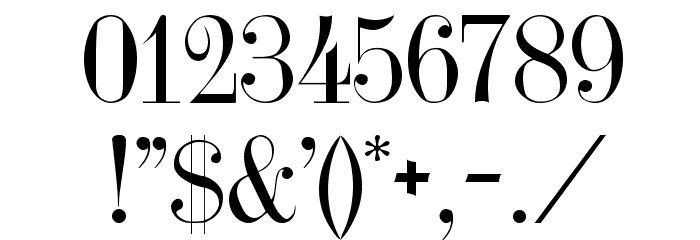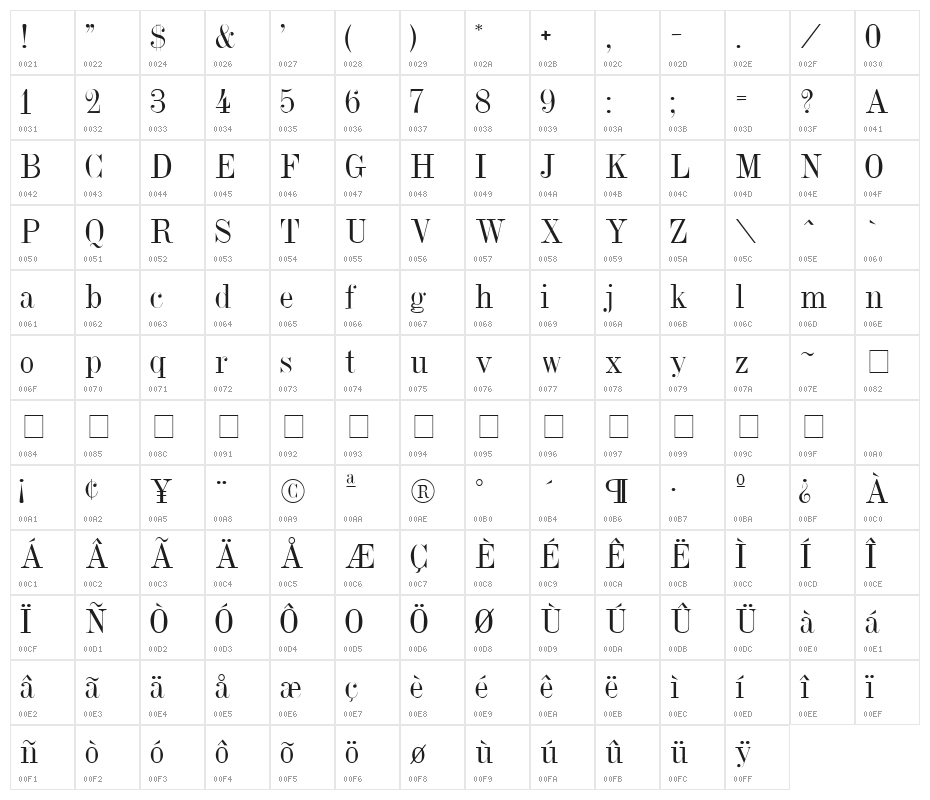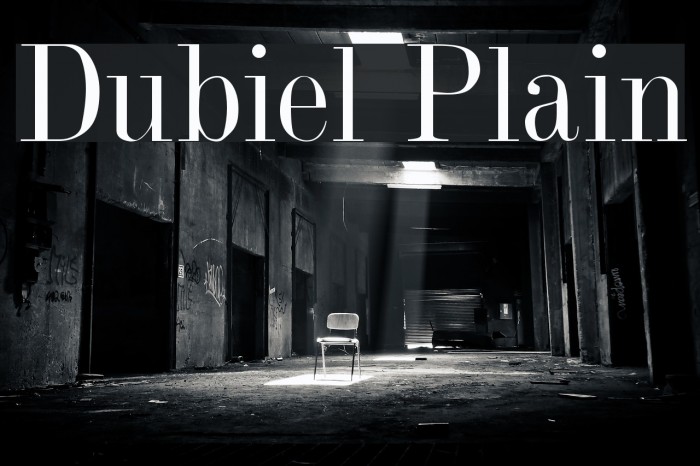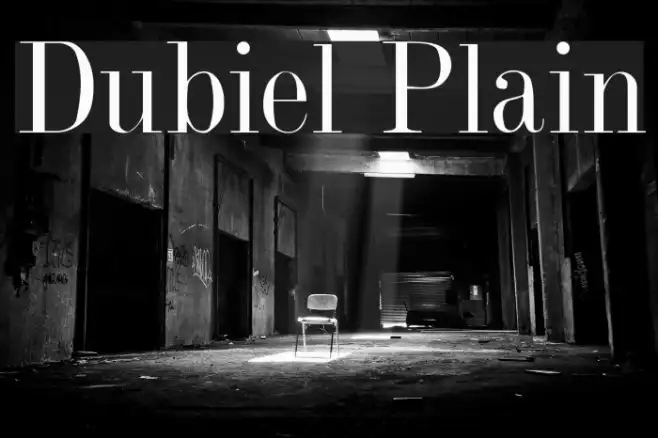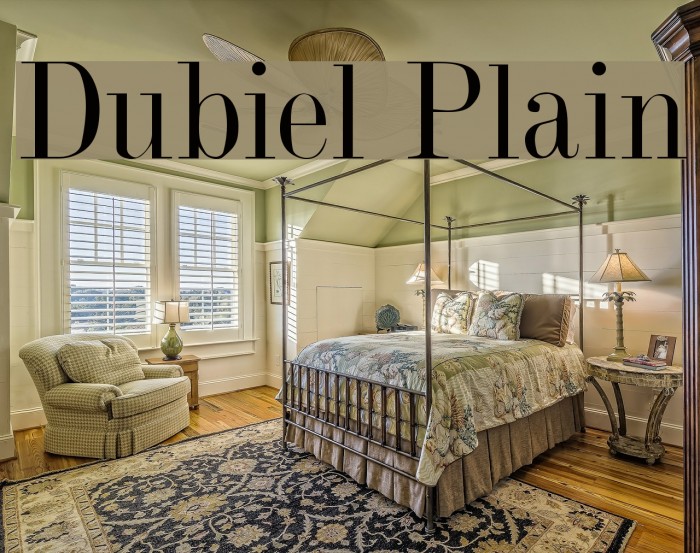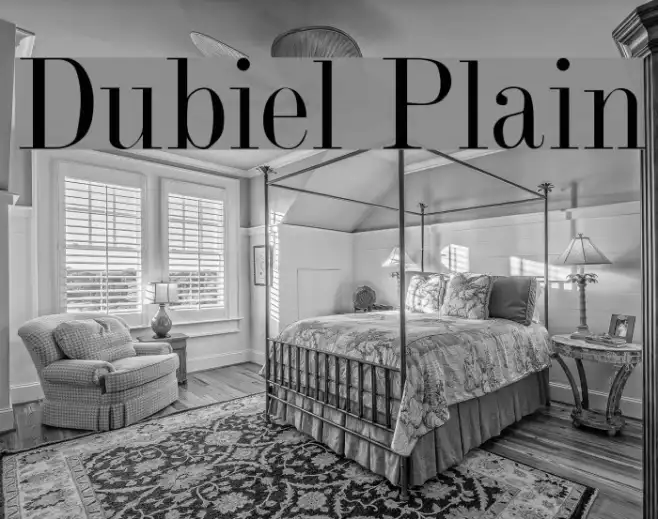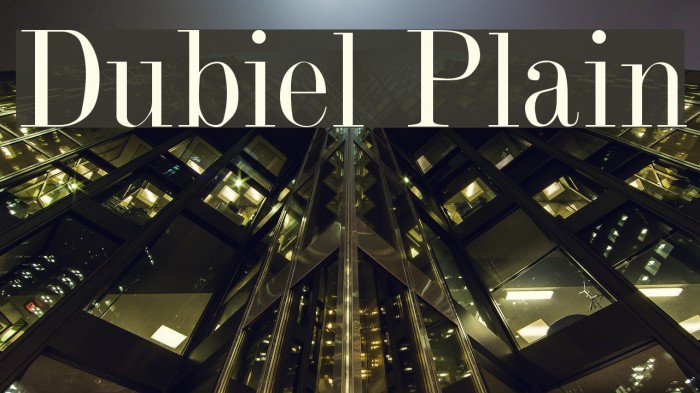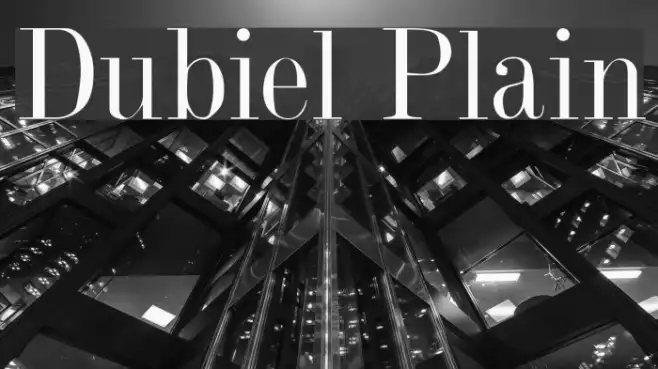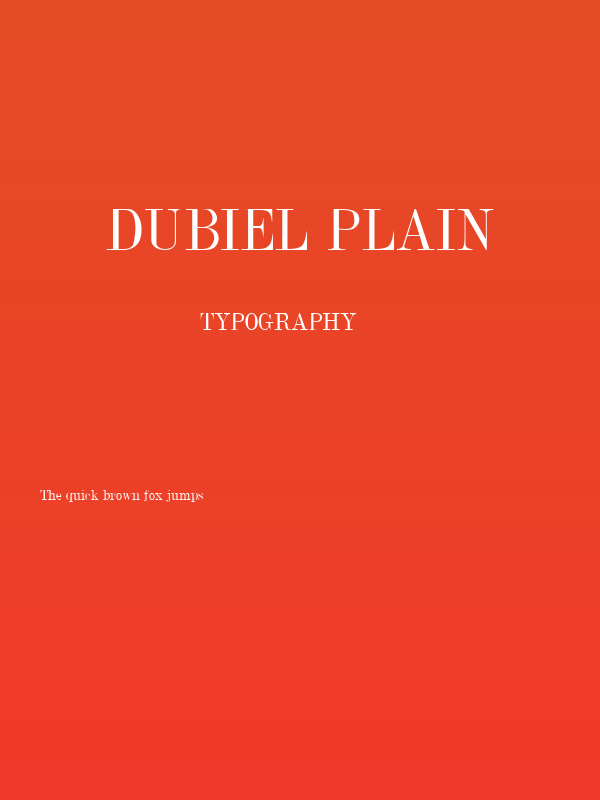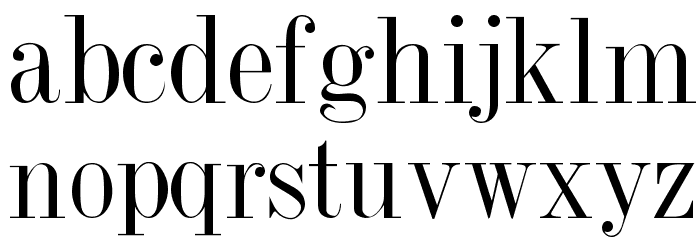
Dubiel Plain Font
Dubiel Plain Description
This typeface features a classic serif design with elegant, thin strokes and high contrast between thick and thin lines. The uppercase letters are tall and stately, while the lowercase letters maintain a refined and balanced appearance. The numerals are distinct and easy to read, with a traditional style that complements the overall aesthetic. Special characters are crafted with the same attention to detail, ensuring consistency throughout the font. The serifs are pronounced, adding a touch of sophistication and formality, making it suitable for a variety of applications where a classic and elegant look is desired.
| Proposed Projects | Ideal for editorial design, book covers, formal invitations, and branding projects that require a touch of elegance and tradition. |